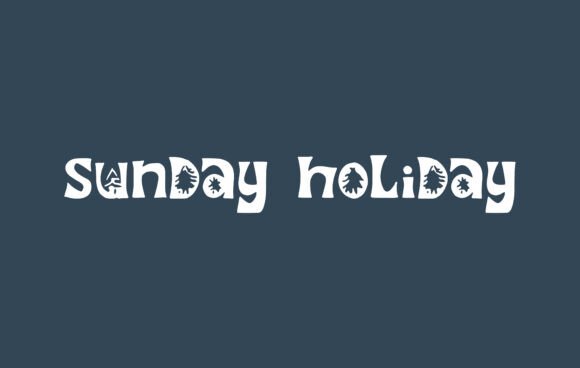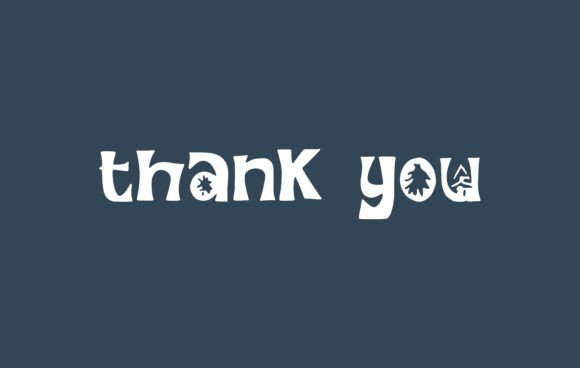
Introduction to Hobbyist Font
You know that moment when you’re working on a creative project, and the perfect font just seems to be missing? The one that captures the essence of your idea and brings it to life? For many designers, this is a constant struggle. But what if I told you that there’s a font that can solve this problem? Enter the Hobbyist Font, a stunning display font that’s perfect for making your designs stand out.
With its romantic touch and high-quality design, the Hobbyist Font is a valuable resource for any designer looking to elevate their creative work. Whether you’re working on a magazine headline, social media post, or wedding invitation, this font is sure to impress. And the best part? It’s completely free to download, making it an accessible design resource for everyone.
- Designed with a focus on aesthetic appeal, making it an ideal design resource for hobbyists and professionals alike.
Honest Review: Hobbyist Font
I recently stumbled upon the Hobbyist Font, a free download that has been making waves in the design community. As a designer, I was excited to dive in and see what it has to offer.
- ✨ High-quality glyphs and character sets make it perfect for creative projects.
- ✨ The transparent background option allows for seamless integration with any design element.
- ✨ The font is incredibly versatile, suitable for a wide range of design styles.
- ⚠️ Limited font weights and styles may not be suitable for complex or detailed designs.
- ⚠️ Some users may find the font’s aesthetics a bit generic, lacking a unique touch.
Overall, I’m impressed with the Hobbyist Font’s potential as a design resource. While it may not be perfect, its free download and high-quality design make it a great addition to any designer’s toolkit. With a bit of creativity, I think this font can be a valuable asset for any creative project.
Hobbyist Font
To get the most out of the Hobbyist Font, use it on a transparent background to achieve a clean and modern look. Experiment with different font sizes and styles to add visual interest to your design. You can also use the font in combination with other design elements, such as images and graphics, to create a unique and eye-catching visual effect.
The Hobbyist Font is perfect for a variety of creative projects, including blog posts, social media graphics, and business cards. It’s also a great choice for designers who need a free and high-quality font for their design projects.